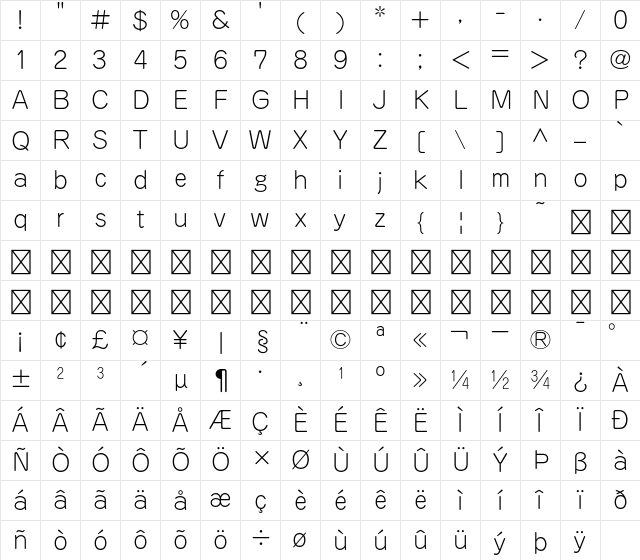
A-OTF Jun Pro 101
Style: 101
Design Context for A-OTF Jun Pro
A-OTF Jun Pro is a composed and adaptable typeface that performs quietly and consistently across a wide range of design contexts.